15 Aesthetic Fonts on Canva to Elevate Your Graphics
Creating eye-catching visuals requires a perfect balance of layout, imagery, and typography. If you are designing for Instagram, building a personal brand, or launching a new website, the typography you choose speaks volumes before a user even reads the words. Finding the right font aestethics on Canva can completely transform a basic template into a professional, high-end piece of art.
With thousands of options available in the font library, scrolling endlessly can eat up your creative time. To simplify your workflow, we have curated the ultimate list of 15 stunning typographic options. These selections range from elegant serifs to playful retro scripts, helping you elevate your graphics instantly.
Why Choosing the Right Typography Matters
Using a cohesive design style helps establish instant brand recognition. It creates an emotional connection with your audience. If your typography looks messy or outdated, users will likely scroll past your content. By mastering how to select and pair different styles, you give your digital platforms a polished, intentional look that builds trust and boosts engagement.
1. Modern Editorial Serif (e.g., Tan Moonlight)
2. Clean Minimalist Sans (e.g., Tenor Sans)
3. Luxury Script (e.g., Brittany Signature)
4. Display/Retro Class (e.g., Bright Style)
15 Best Aesthetic Fonts on Canva
Elegant & Modern Serifs
Tan Moonlight
A beautiful, display serif filled with vintage charm. Ideal for quote graphics and chic blog headers.
Nectarine
Bold retro-editorial style featuring soft curved edges. Demands high visual attention.
Glamour
Brings high-fashion elegance to minimalist layout portfolios and product branding designs.
Couture
A stark, capitalized style representing authority and high-fashion luxury trends.
Minimalist & Clean Sans-Serifs
League Spartan
A bold geometric anchor font. Clean structure perfect for layered text on social designs.
Montserrat Light
Geometric design with thin strokes. Gives layouts a clean, modern, and open feeling.
Glacial Indifference
The epitome of neutral modern minimalism. Clean layouts are guaranteed with this.
Tenor Sans
Slightly wider geometric proportions. Extremely classy and calm interface design asset.
Chic Script & Cursive Fonts
Brittany Signature
Sophisticated signature style script. Adds customized organic look to logos and business watermarks.
Creamy Script
Thick and luxurious flow structure. Excellent choice for lifestyle pins, recipes, and notes.
Anakeim
Artistic and unique glyphs, breathing absolute custom identity into social media carousels.
Playfair Script
Formal, high-contrast cursive typography companion. Fits romantic themes and event stationery.
Trendy Retro & Display Fonts
Bright
Vintage retro serif packed with luxury ligatures. Perfectly sets a nostalgic, warm autumn atmosphere.
Genty
Chunky, bubbly retro design built for stickers, creative posters, and high-impact packaging titles.
Apricots
Soft, cozy handwritten font. Universally loved for vlog thumbnails and daily life journaling templates.
Pro Tips for Pairing Text Styles Seamlessly
To keep your designs looking balanced and completely unified, follow these essential typography rules formulated by top-tier art directors:
1 Create Contrast
Pair a complex, expressive header (like Tan Moonlight) with an understated sans-serif body style (like Glacial Indifference).
2 Limit Selection
Stick to maximum two or three selections per graphic sheet. Uncontrolled variant mixing damages layout clarity.
3 Match Brand Persona
Geometric styling matches clean modern product startups, while high-contrast serifs perfectly fit boutique fashion and lifestyles.
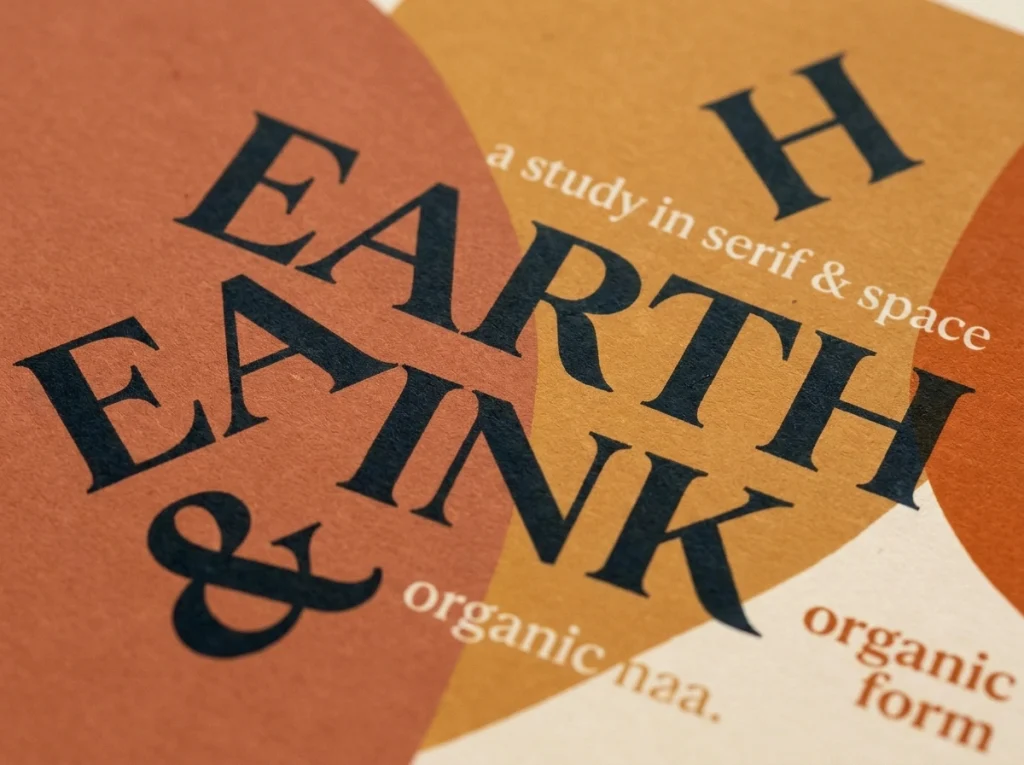
Elevate Your Visual Content Today
Choosing the perfect combination of typography shouldn’t feel overwhelming. By utilizing these aesthetic fonts on Canva, you can break away from boring, generic templates and craft distinct visual assets that capture your audience’s attention.
Experiment with combinations, find a signature pair that represents your digital identity, and start leveling up your graphic design projects today.